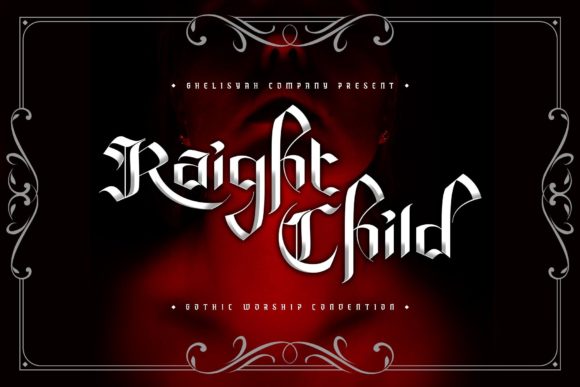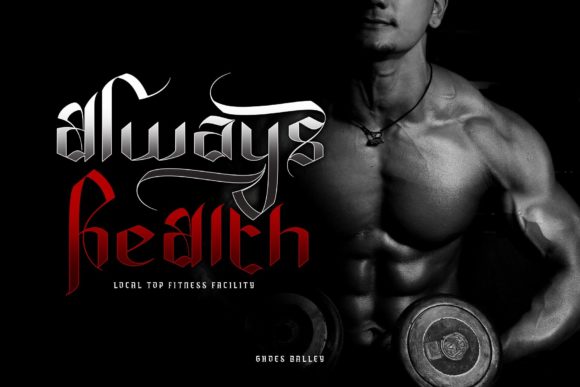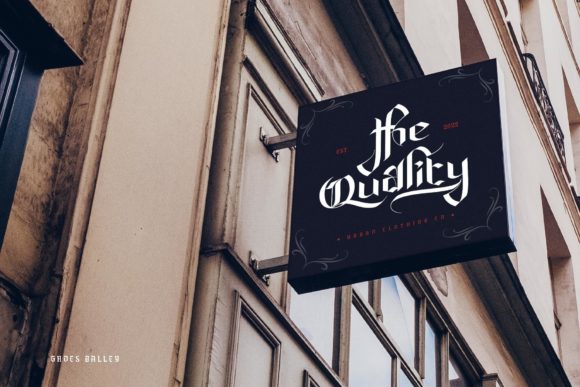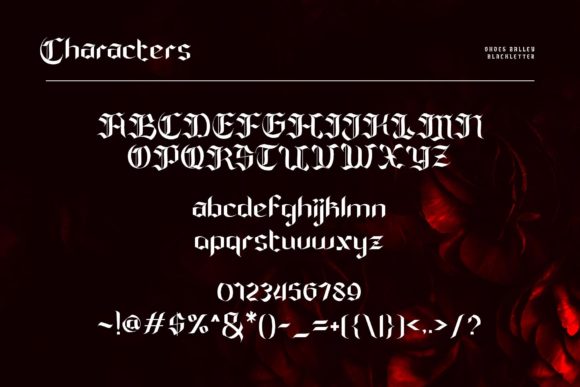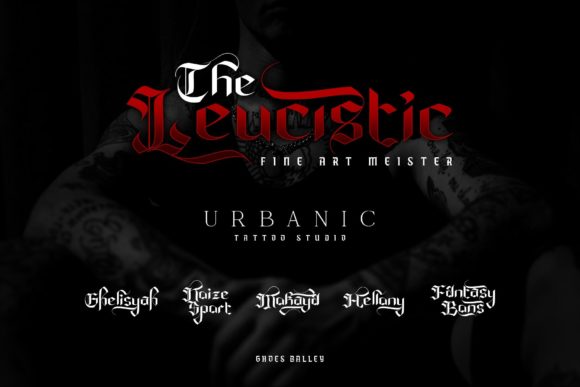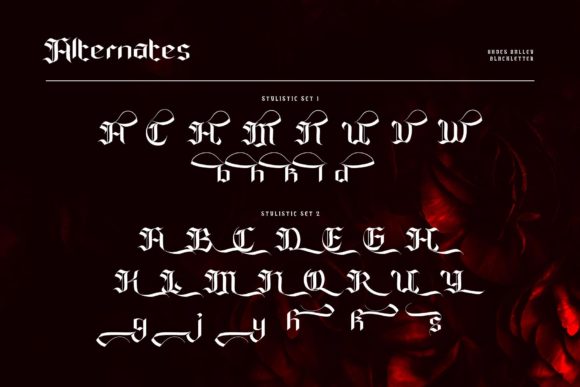
Introduction to Ghoes Balley Font Font
Fonts play a crucial role in design, and the Ghoes Balley Font font is a typeface that brings both character and versatility to any project. Whether you’re working on a branding project, a website, or a print design, the Ghoes Balley Font font offers a unique style that can elevate your work.
Ghoes Balley is a bold and stylish blackletter font.
This font is PUA encoded which means you can access all glyphs and swashes with ease Add it confidently to your favorite creations and let yourself be amazed by the outcome generated.
Key Features of Ghoes Balley Font Font
Why Choose Ghoes Balley Font Font?
The Ghoes Balley Font font is more than just a typeface – it’s a design tool that helps you communicate your message with style and clarity. Its unique character set and versatile design make it suitable for a wide range of applications, from elegant invitations to bold headlines.
With its carefully crafted letterforms and balanced proportions, the Ghoes Balley Font font ensures readability and visual appeal across all mediums.
What makes Ghoes Balley Font font special?
The Ghoes Balley Font font stands out with its unique design, exceptional readability, and versatility across various design applications.